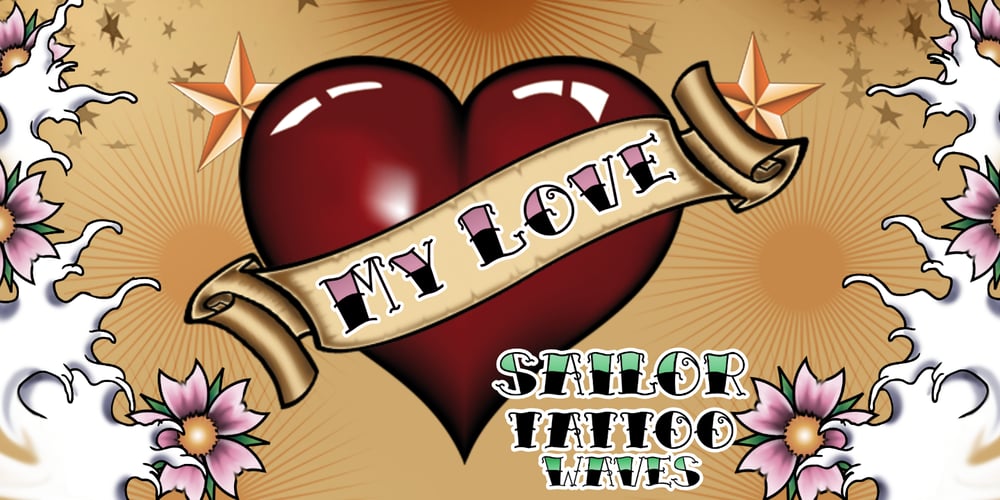
SailorsTattoo Waves Font Family was designed by Otto Maurer and published by Otto Maurer. SailorsTattoo Waves contains 4 styles and family package options. Sailors Tattoo Waves is a modifikation of my Font Sailors Tattoo. This Fonts are made for best oldschool or traditional Tattoodesigns. You can color the half-version with the full-version. Take a graphic app like Affinity Photo or Affinity Designer and use the layers. Drop the colored full-version under the black half-version.